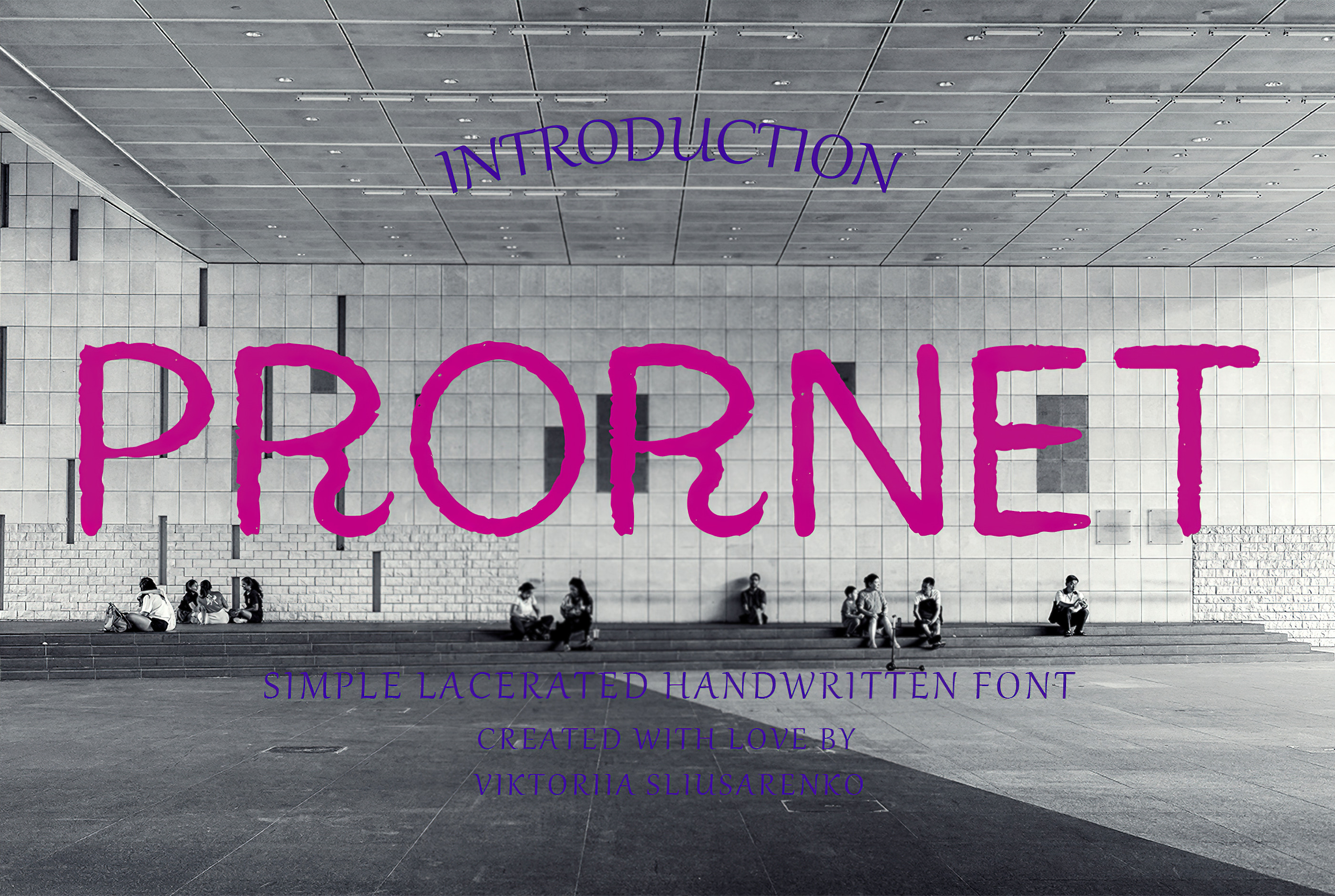
PRORNET - handwritten font
Introducing Prornet: A Charming Vintage Handwritten Font for Authentic Designs
Prornet is a captivating handwritten font that effortlessly adds a touch of vintage appeal to your creative projects. As a versatile vector font, it guarantees clarity and sharpness, ensuring impeccable quality at any size.
This delightful font captures the essence of handwritten text with its simple torn appearance, reminiscent of writing with an old ballpoint pen. The slightly irregular lines and distressed edges infuse the font with a nostalgic and authentic feel, perfect for adding warmth and character to your designs.
With 20 ligatures, Prornet allows you to create unique and flowing letter combinations, enhancing the natural flow of the font. Additionally, the font features fancy-looking letters and punctuation marks, adding an elegant and stylish touch to your text.
Whether you're designing invitations, branding materials, or creating artistic typography, Prornet brings a captivating vintage charm and authentic handwritten feel to your projects. Let Prornet transport your audience to a bygone era with its simple torn style and elegant letterforms. Unleash your creativity with Prornet and embark on a nostalgic design journey.